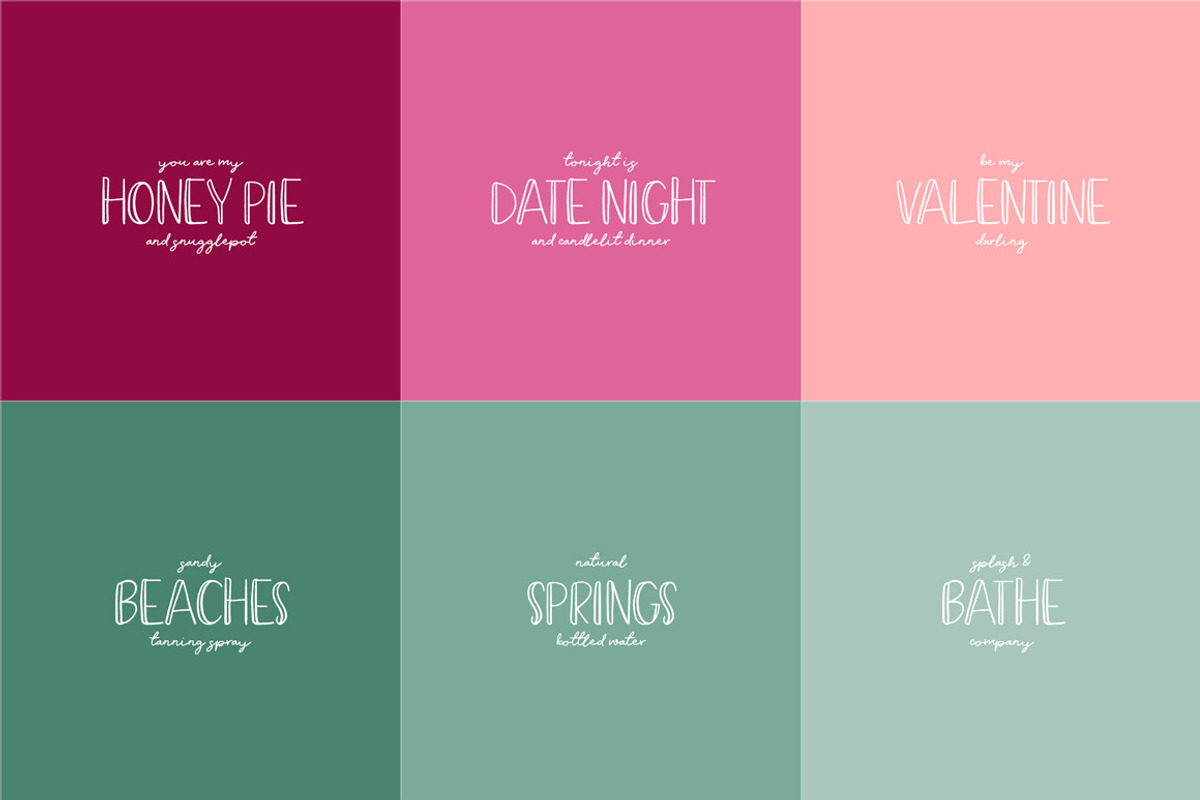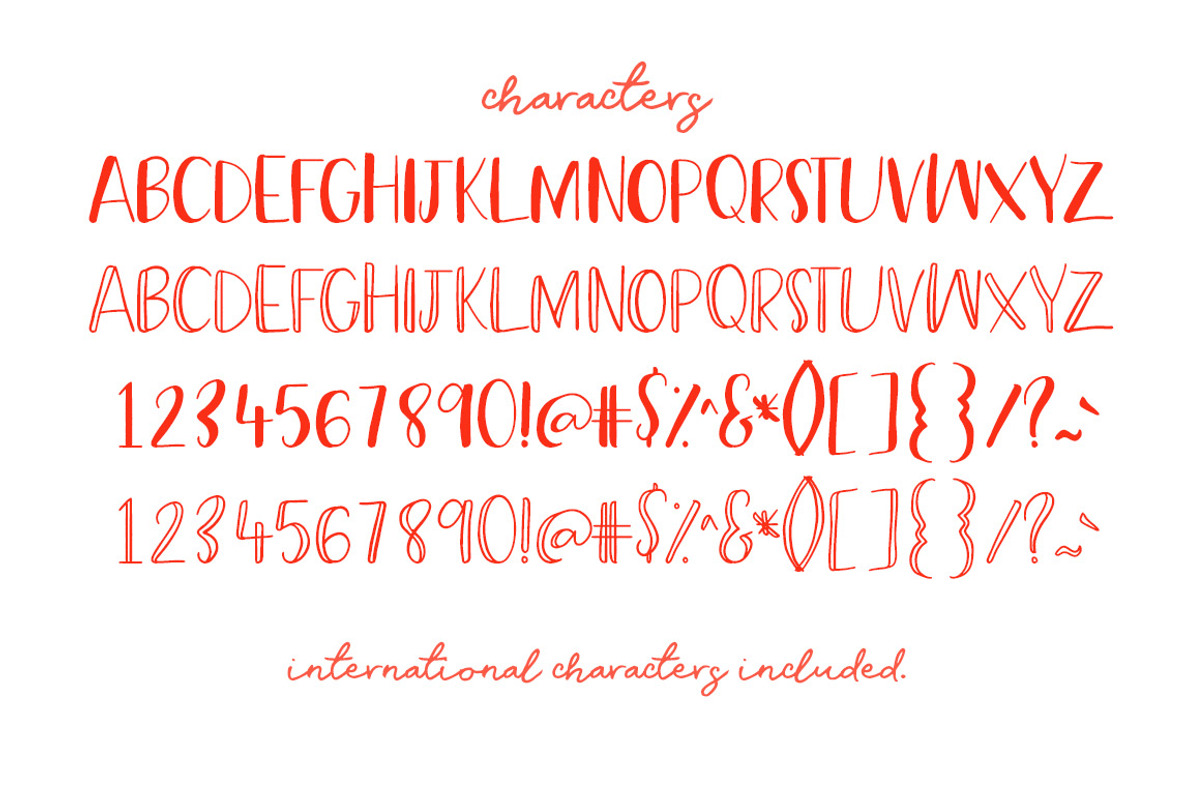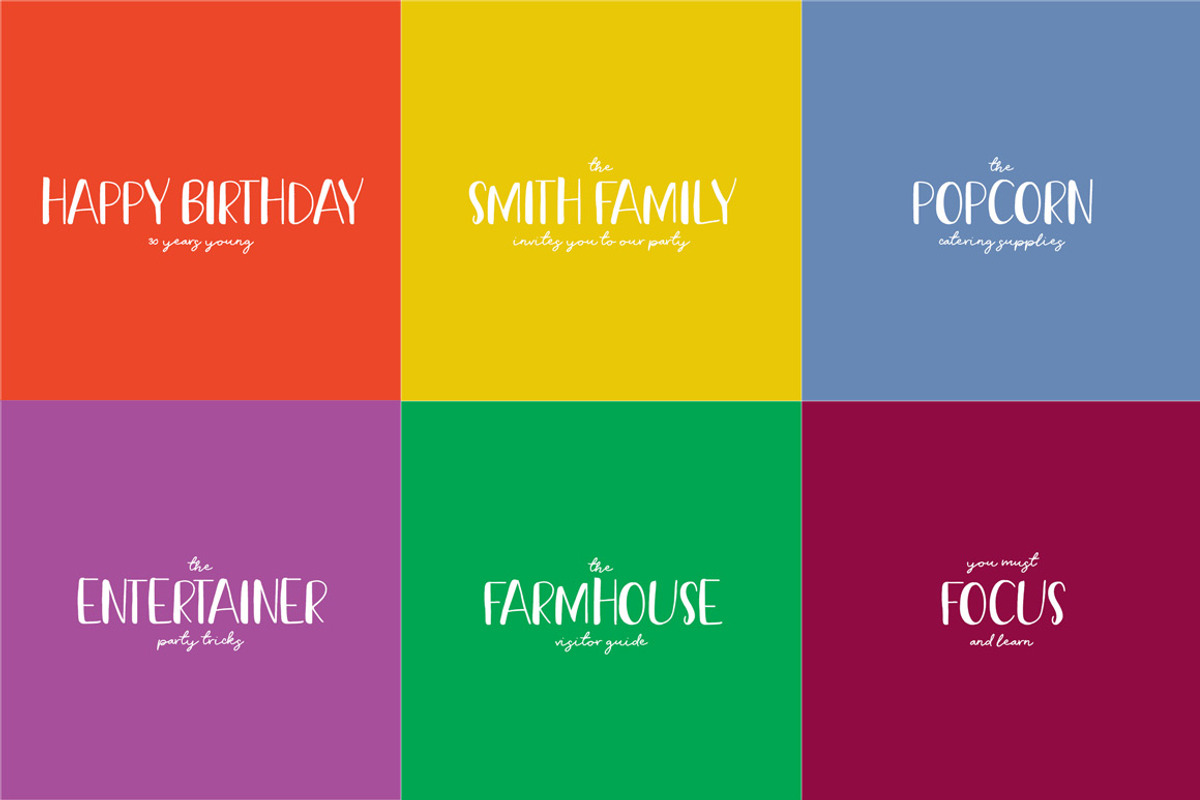
Frosted Cupcake Font
Introducing Frosted Cupcake
This all caps font comes in Outline and Solid, and it perfect for all applications.
- International Characters included.
Why Frosted Cupcake Font is worth a look
Frosted Cupcake Font by Creativeqube Design fits naturally into Branding, posters, packaging, typography.